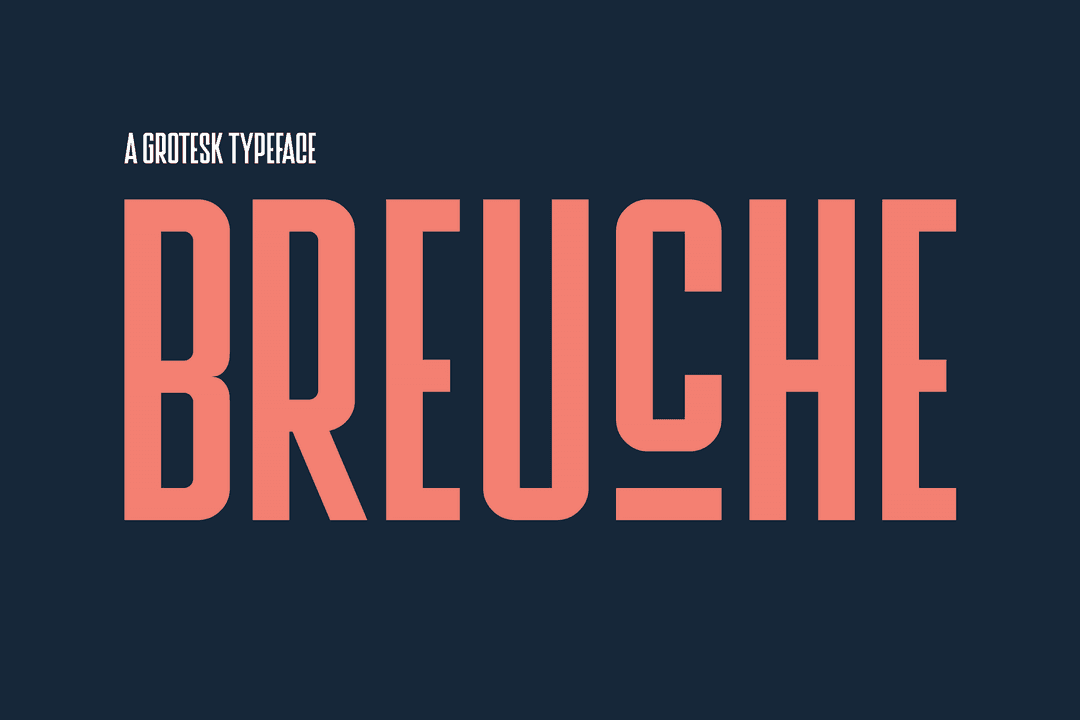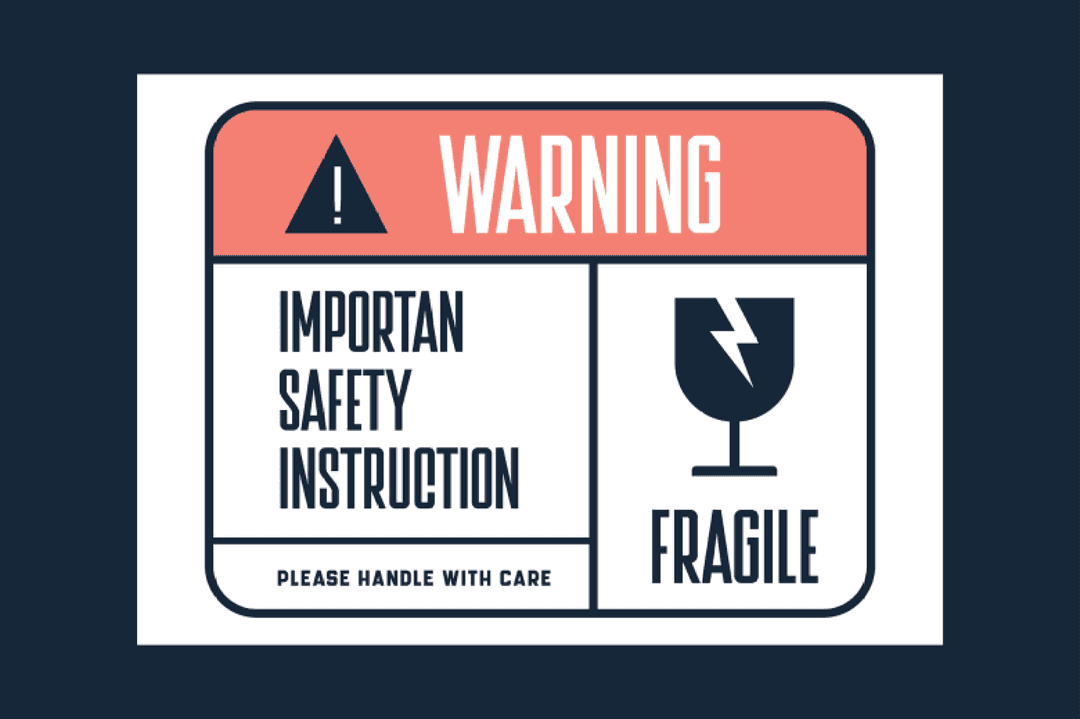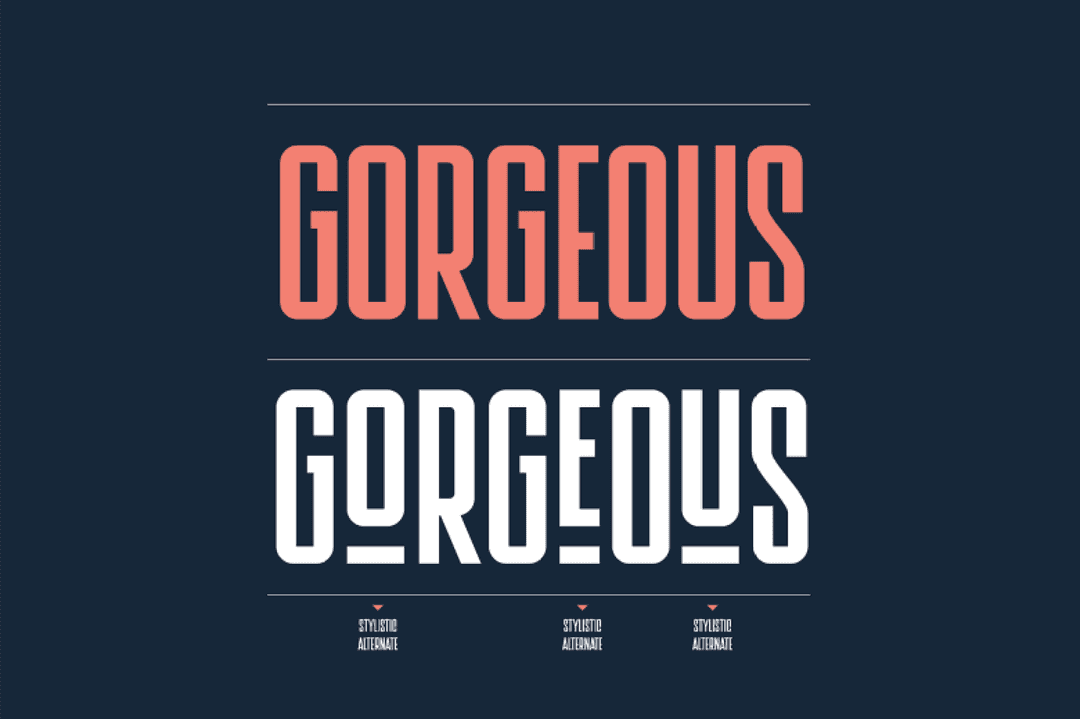
Breuche Font is a beautifully constructed display typeface. Perfect for web designs as well as business cards or anything requiring distinctive style, Breuche’s easy, bold, and thickly constructed characteristics make it a versatile font choice.